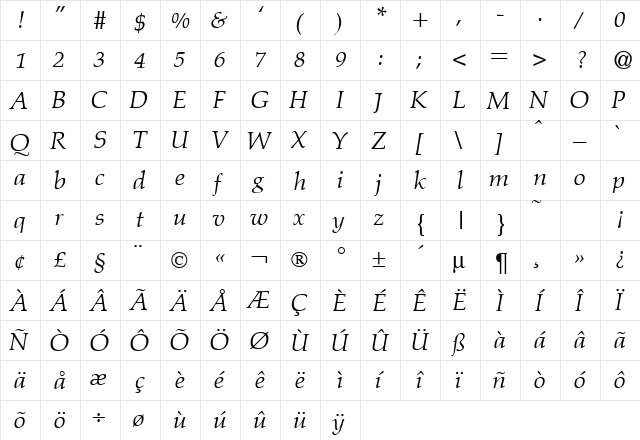
PalmerWerk Italic
Design Context for PalmerWerk Typeface
PalmerWerk takes a measured approach to typography — its balanced proportions and neutral character make it a reliable workhorse for both digital and print work. Its italic angle brings a sense of urgency and motion to the letterforms.
Pro Tip: Try PalmerWerk for annotation and caption copy alongside an upright companion — the contrast in angle creates a dynamic but ordered typographic system.